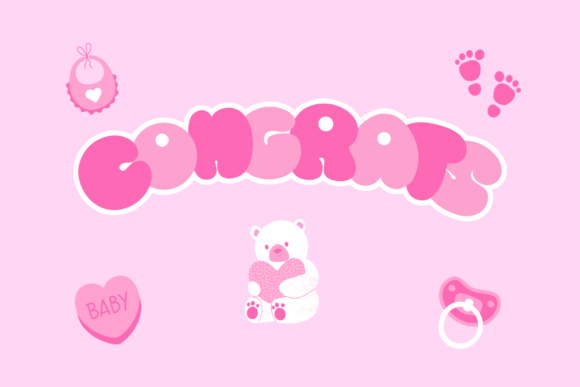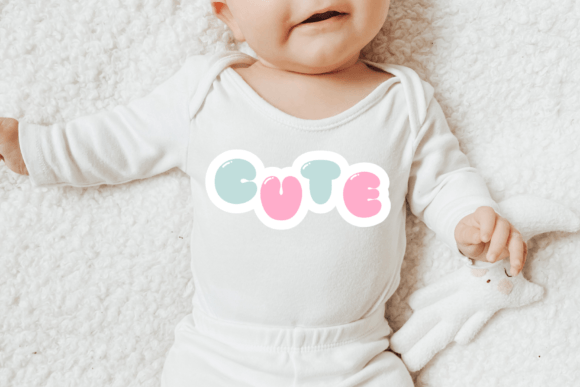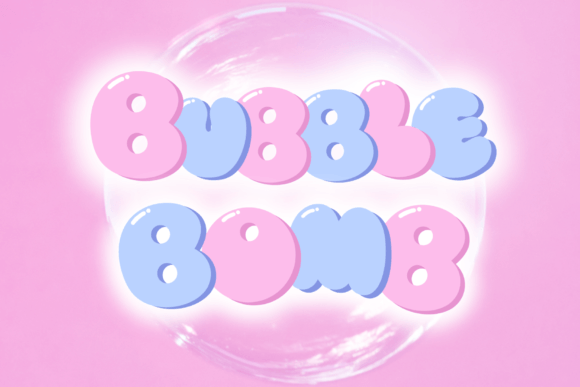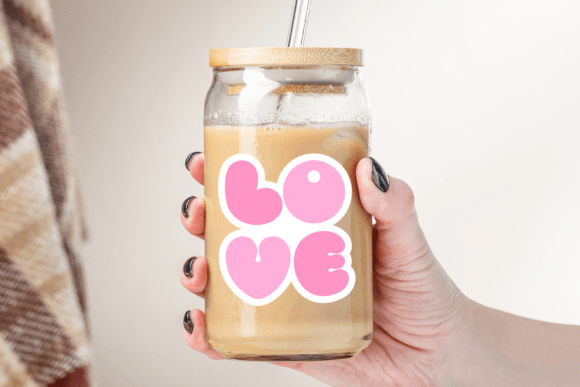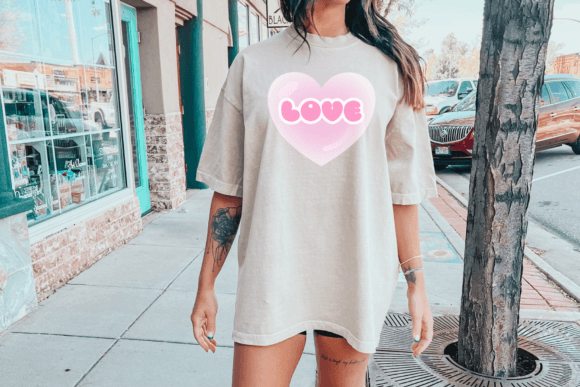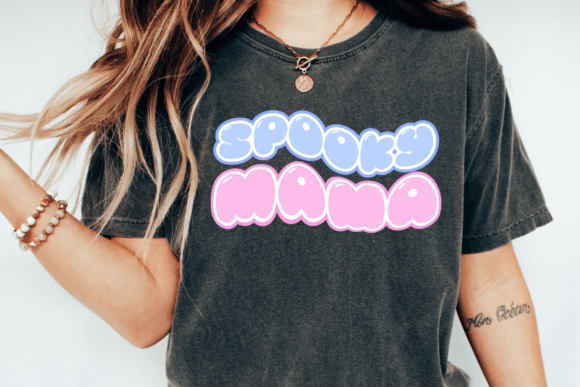
The Perfect Font for a Whimsical Touch
Have you ever stared at a blank canvas, wondering how to bring your creative vision to life? The blank page can be intimidating, but sometimes all it takes is a single element to spark inspiration. For me, that element was a font – specifically, the adorable Bubble Font.
With its bubbly and rounded letters, the Bubble Font is the perfect addition to any project that needs a playful touch. Whether you’re designing a children’s book, a logo, or a greeting card, this font is sure to add a lighthearted and joyful feel. Its friendly appearance makes it a valuable asset for designers looking to bring a smile to their audience’s faces.
By incorporating the Bubble Font into your designs, you can add a touch of charm and playfulness that’s sure to leave a lasting impression. So why not give it a try and see the difference it can make in your next creative project?
Bubble Font Key Features
- Font Family: Bubble Font is a unique, handwritten font family with a playful and whimsical feel.
- Character Set: The font family includes a wide range of characters, including uppercase and lowercase letters, numbers, and punctuation marks.
- Unique Characteristics: Features a distinctive, hand-drawn style with subtle variations in letterforms and spacing, adding a touch of personality to any design.
Bubble Font Review
I recently had the chance to work with the Bubble Font, and I have to say, it’s a unique and interesting choice. ✨ The rounded, bubbly shapes that make up this font are sure to catch the eye and add a playful touch to any design. I particularly enjoy using it for headings and titles, as it adds a sense of whimsy and fun.
- ✨ Easy to read: Despite its playful appearance, the Bubble Font is surprisingly easy to read, even at smaller font sizes.
- ✨ Versatile: This font works well for both digital and print designs, making it a great choice for projects that require a mix of both.
However, there are some limitations to consider. ⚠️ The font can feel a bit overwhelming if used too liberally, and it may not be the best choice for projects that require a more serious or professional tone.
Overall, I think the Bubble Font is a great choice for designers who want to add a bit of personality and flair to their work. It’s not for every project, but when used thoughtfully, it can be a real showstopper. I’d definitely consider using it again in the future.
Tips for Getting the Most Out of Bubble Font
Use a consistent font style and size to create a cohesive look. Experiment with different bubble sizes and colors to add visual interest. Use bubble font to highlight important information or create a playful atmosphere.
Bubble font is commonly used in social media graphics, posters, and advertisements. It’s also used in educational materials, such as infographics and presentations, to make complex information more engaging and easy to understand.